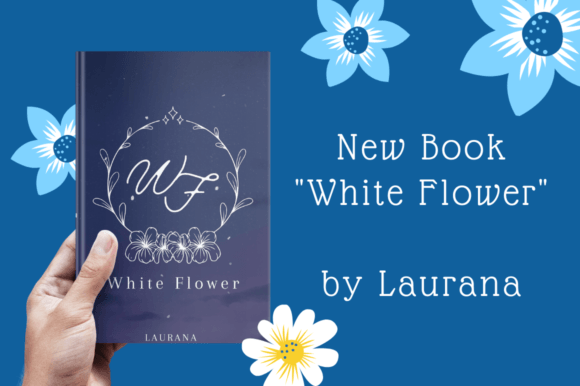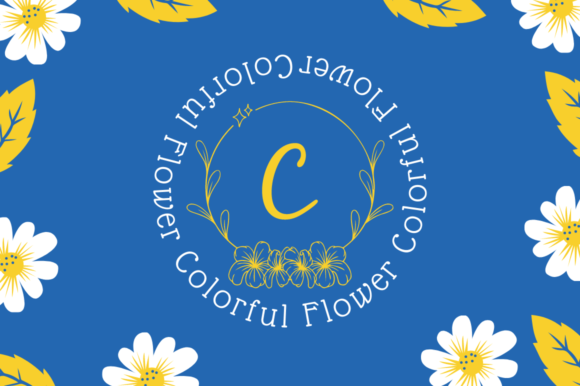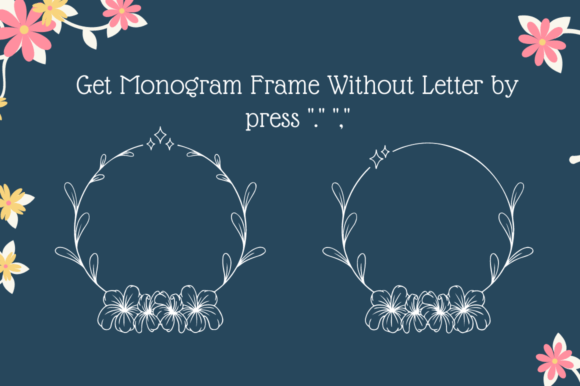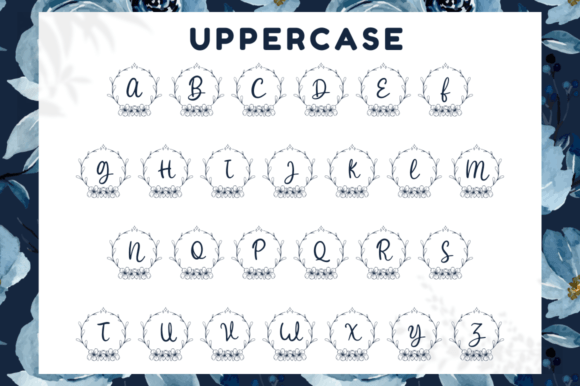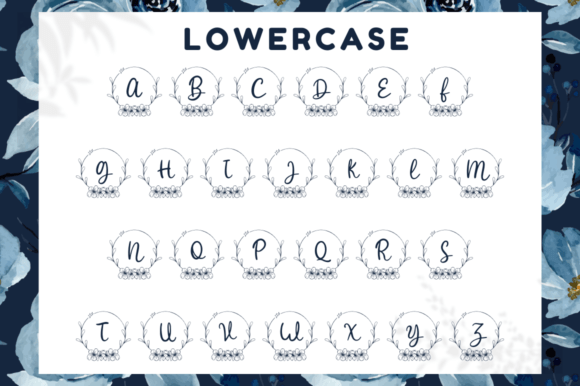
Ayana Monogram Font: Elevate Your Designs with Elegant Floral Style
Are you a designer or crafter looking for a unique and beautiful font to elevate your designs? Look no further than the Ayana Monogram Font. This stunning flower monogram font is perfect for special occasions, business designs, logos, branding, social media posts, and wedding cards. In this article, we’ll explore the features and benefits of the Ayana Monogram Font and show you how to make the most of its lovely characters.
What is Ayana Monogram Font?
Ayana Monogram Font is a beautifully designed font that features floral monogram characters. The font is perfect for anyone looking to add a touch of elegance and sophistication to their designs. With its unique and stylish characters, Ayana Monogram Font is sure to make your designs stand out from the crowd.
Key Features of Ayana Monogram Font
- Lovely Characters: Ayana Monogram Font features beautiful floral monogram characters that are sure to impress. Each character is carefully designed to be elegant and sophisticated, making them perfect for a variety of design applications.
- Uppercase and Lowercase Styles: One of the best things about Ayana Monogram Font is that it offers two different styles, simply by switching between uppercase and lowercase letters. This allows you to create a wide range of designs, from elegant and formal to playful and whimsical.
- Versatility: Ayana Monogram Font is incredibly versatile and can be used for a wide range of design applications, including business designs, logos, branding, social media posts, and wedding cards.
Benefits of Using Ayana Monogram Font
There are many benefits to using Ayana Monogram Font in your designs. Here are just a few:
- Elegance and Sophistication: Ayana Monogram Font adds a touch of elegance and sophistication to any design. Its beautiful floral monogram characters are sure to impress your clients and audience.
- Unique and Memorable: Ayana Monogram Font is a unique and memorable font that will help your designs stand out from the crowd. Its stylish characters are sure to leave a lasting impression on your audience.
- Start Designing: Start designing with Ayana Monogram Font. Experiment with different styles and combinations of uppercase and lowercase letters to create unique and beautiful designs.
Inspiration for Using Ayana Monogram Font
Here are some ideas for using Ayana Monogram Font:
- Wedding Cards and Invitations: Use Ayana Monogram Font to create beautiful wedding cards and invitations. The font’s elegant and sophisticated style is perfect for wedding designs.
- Business Logos and Branding: Use Ayana Monogram Font to create a unique and memorable logo and branding for your business. The font’s stylish characters are sure to impress your clients and audience.
- Social Media Posts: Use Ayana Monogram Font to create eye-catching social media posts. The font’s elegant and sophisticated style is perfect for creating professional-looking social media graphics.